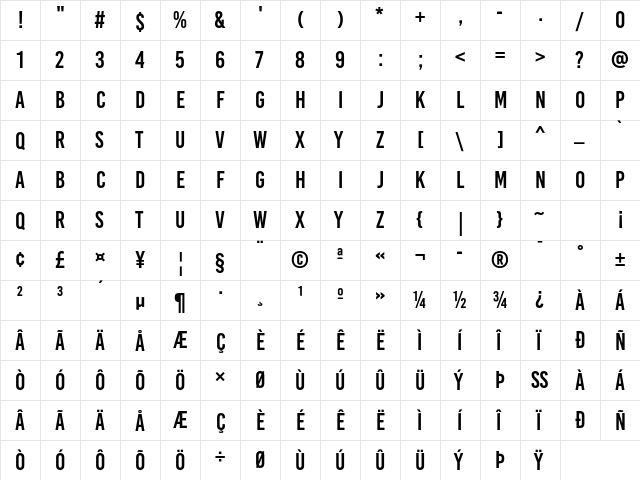
BaseOne Regular
| Foundry | Design by Basse |
| Designer | Domenico Catapano |
Design Context for BaseOne Typeface
BaseOne takes a measured approach to typography — its balanced proportions and neutral character make it a reliable workhorse for both digital and print work.